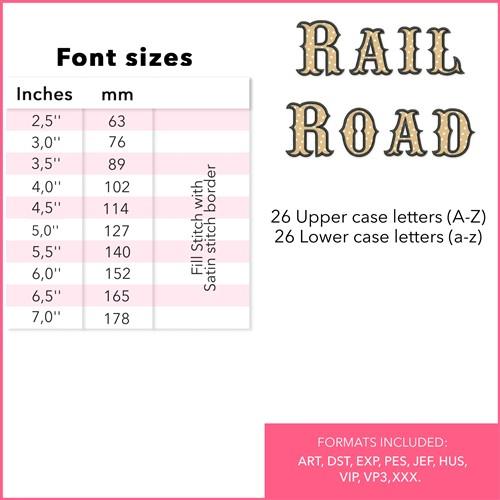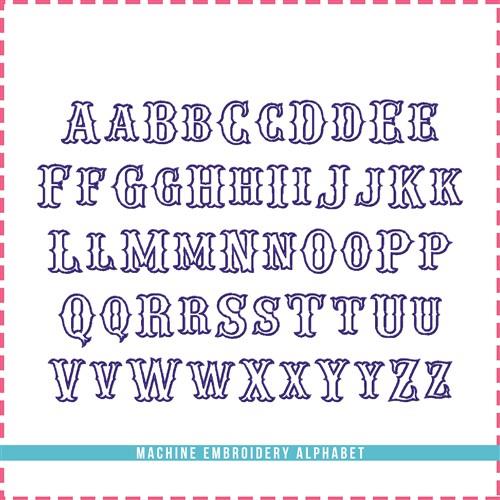
Maya Kreations is happy to present Rail Road Applique Font machine embroidery font which has Decorative, Western-inspired machine embroidery font with bold, outlined letters and patterned filling, ideal for adding character to jackets and bags. Available in PES, DST and 8 other formats. included. If you would like to view more embroidery fonts and alphabets please search our embroidery fonts page.